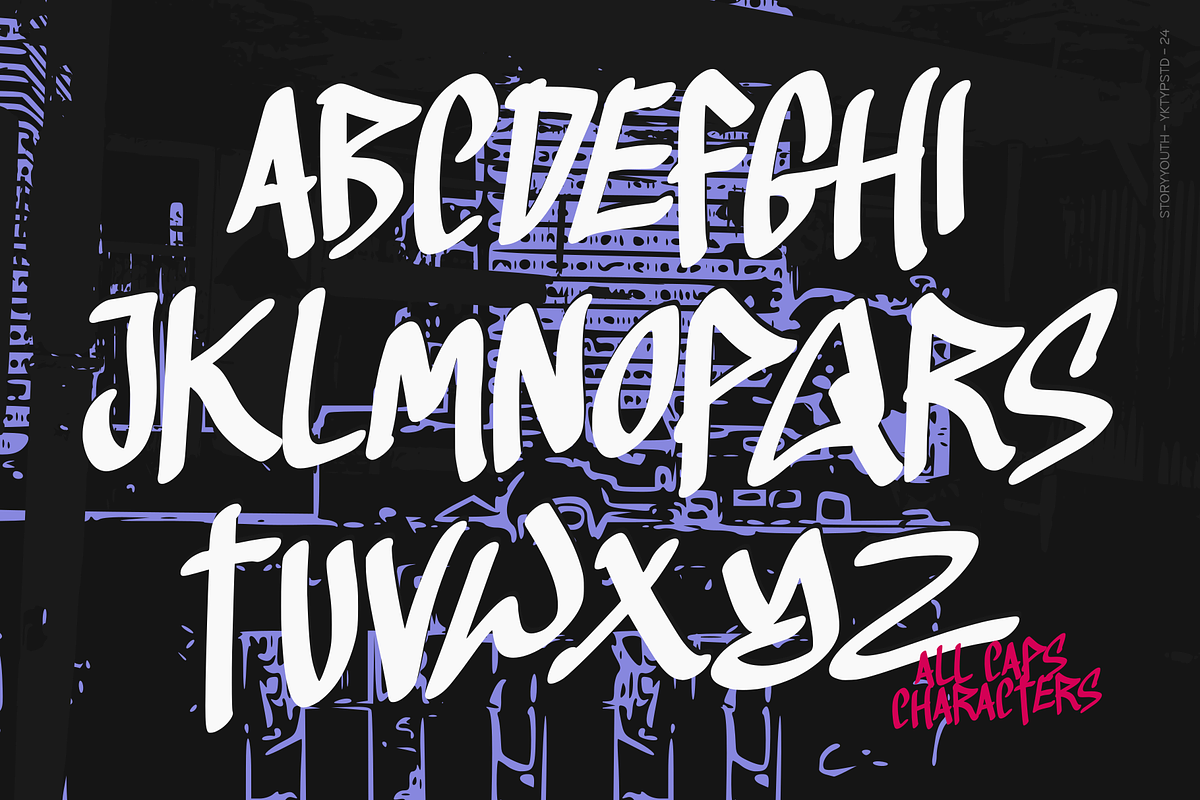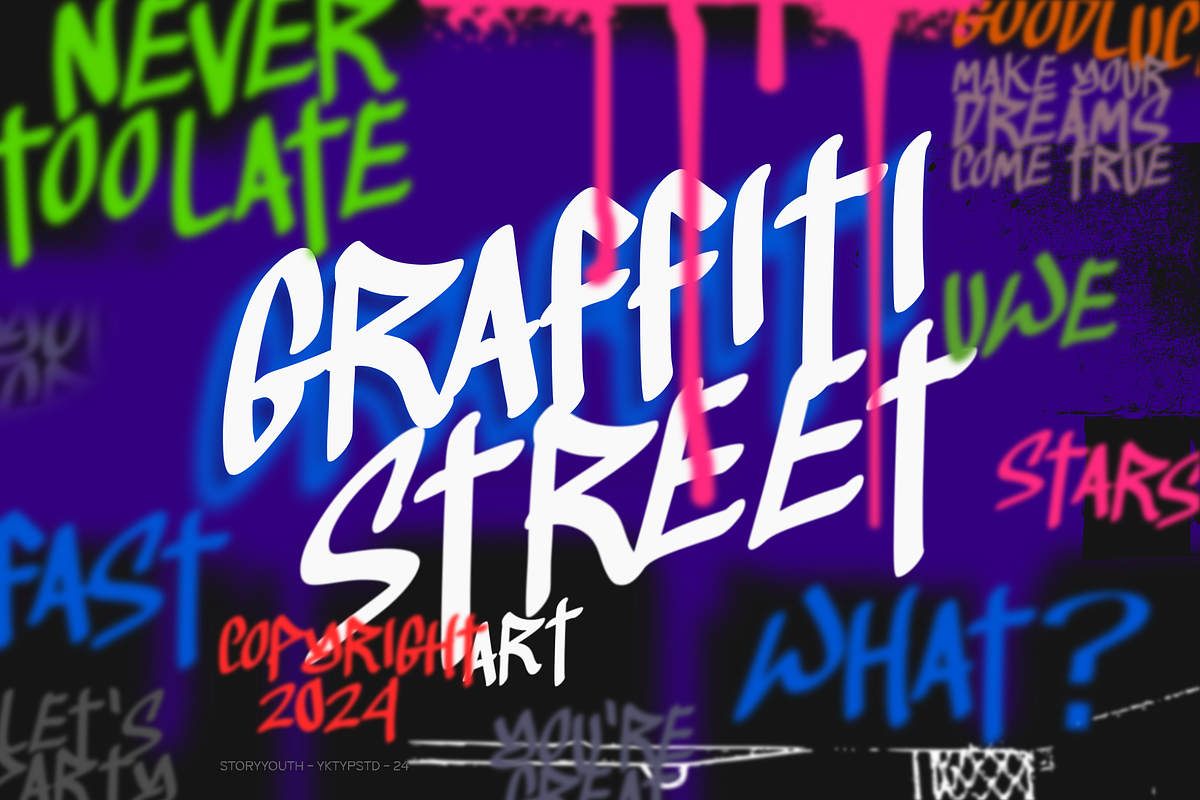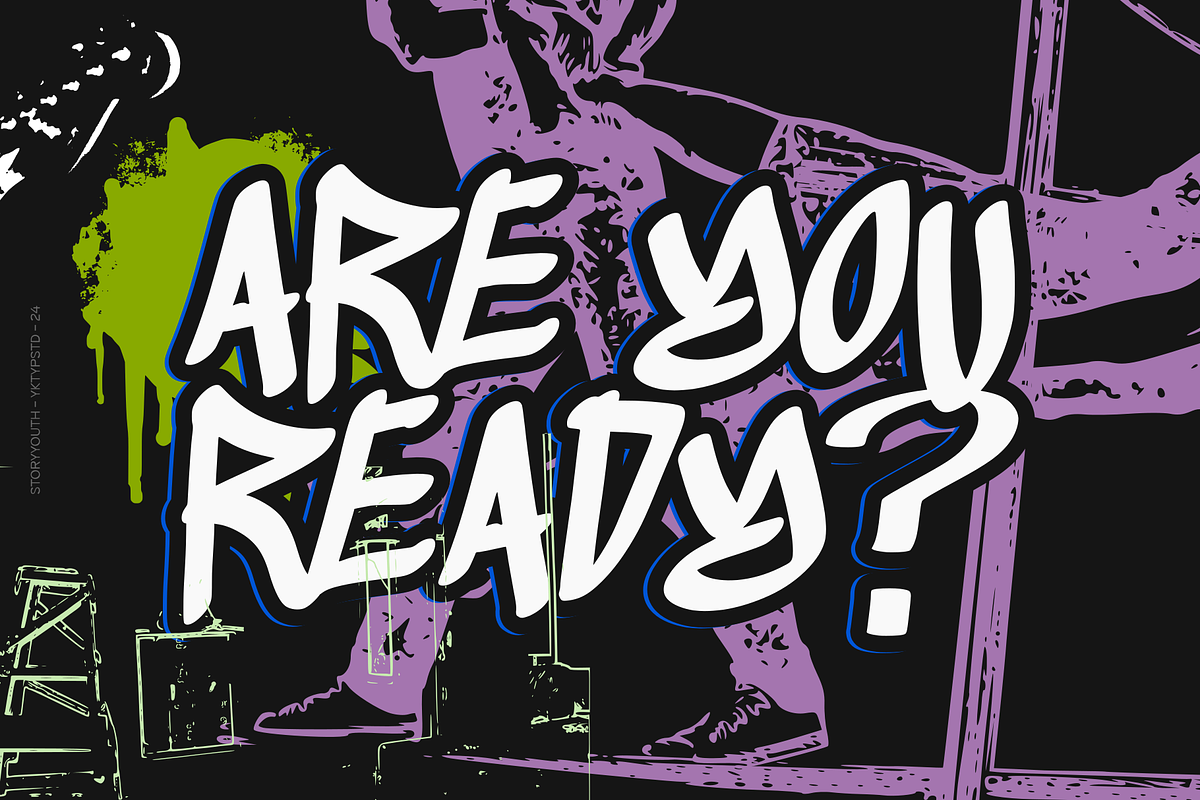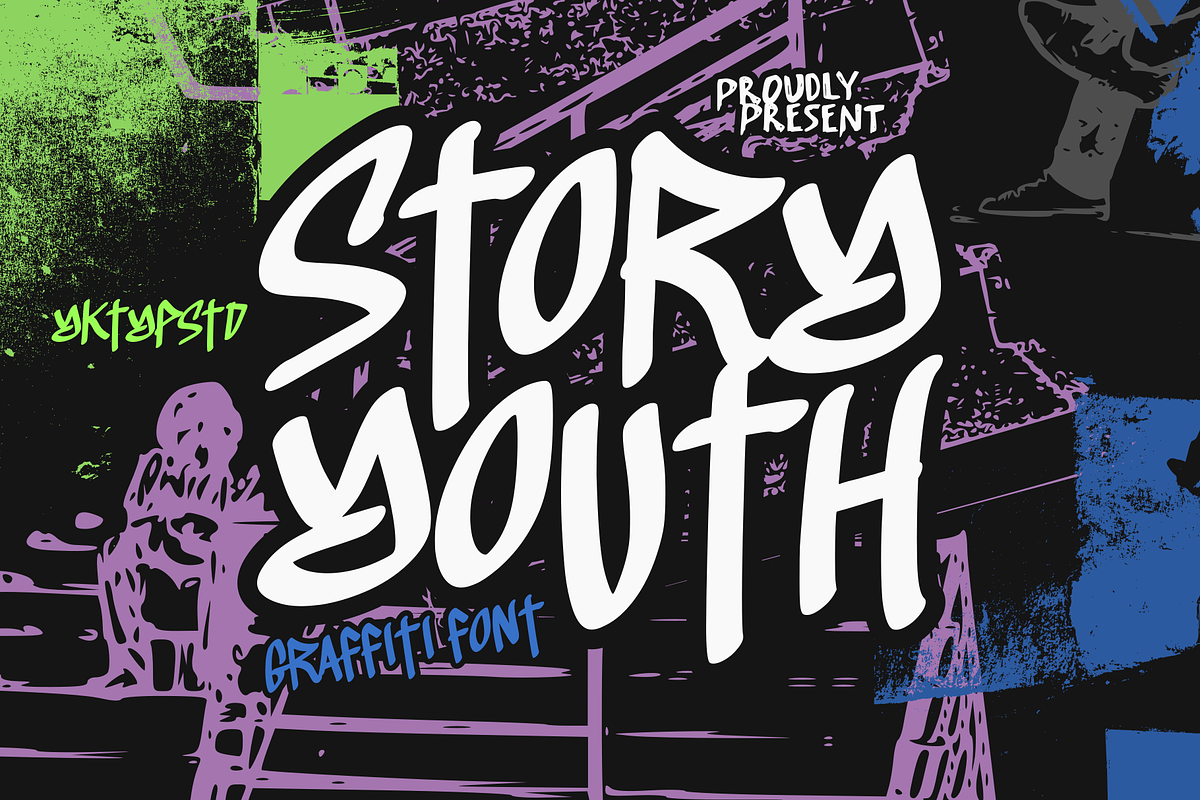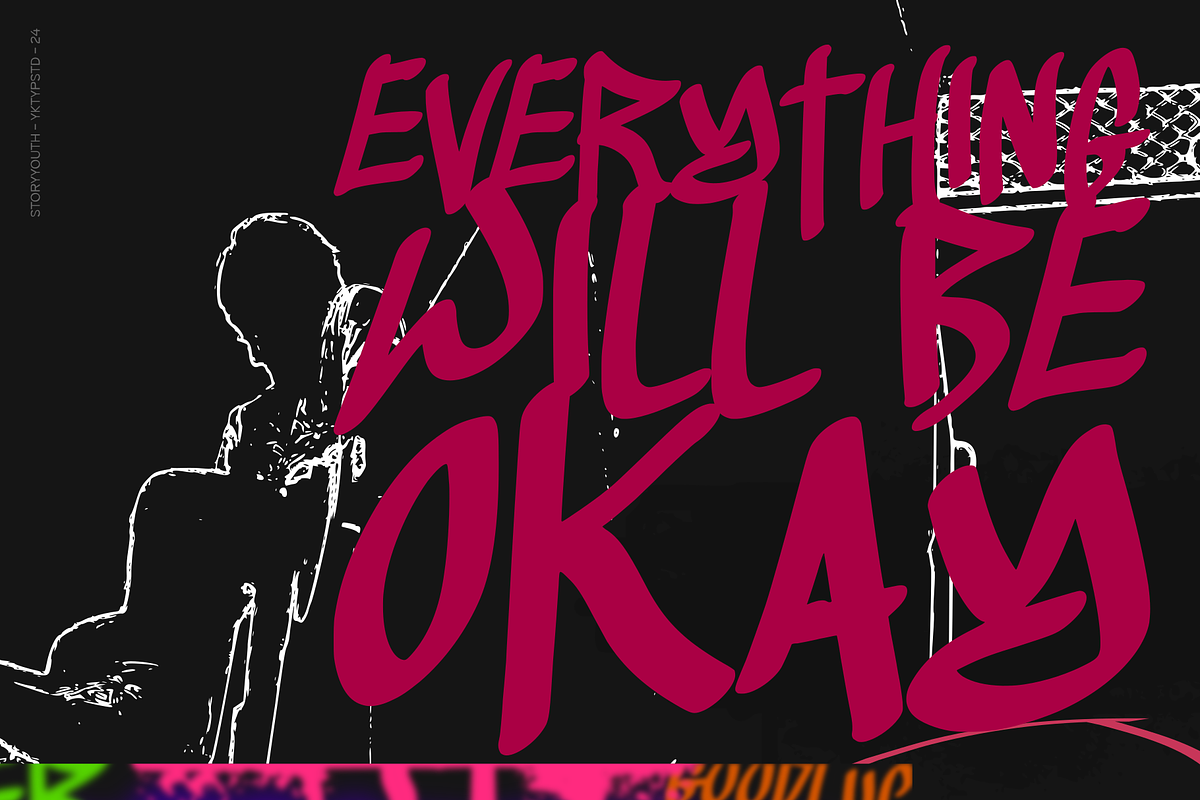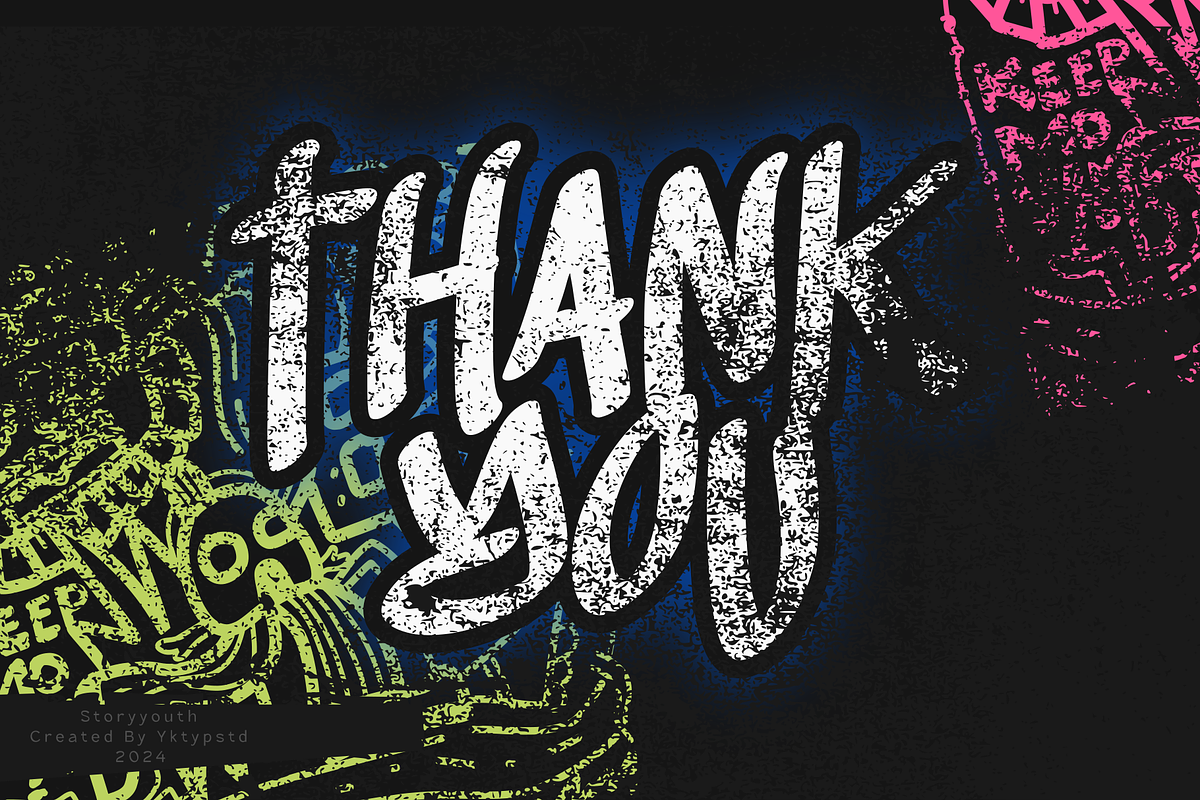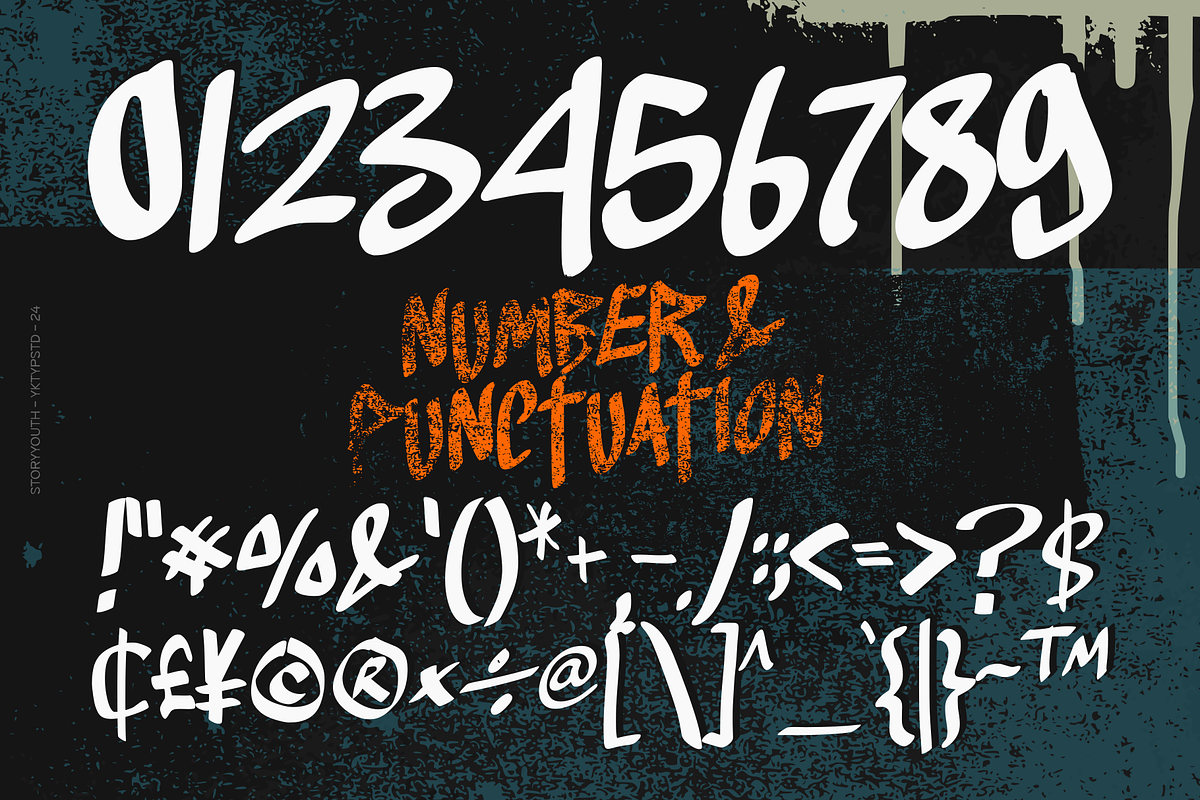
Storyyouth
Introducing Storyyouth, a vibrant graffiti-inspired font that sets the stage for high-impact headlines. Perfectly tailored for striking t-shirt and hoodie prints, it adds an audacious twist to your merchandise. Whether it’s packaging design, bold advertising posters, or assertive branding elements, Storyyouth effortlessly breathes life into your creations. Fuse this unique font with a dash of urban or street-style aesthetics to give your design projects a captivating edge.
- All Caps Character (A-Z)